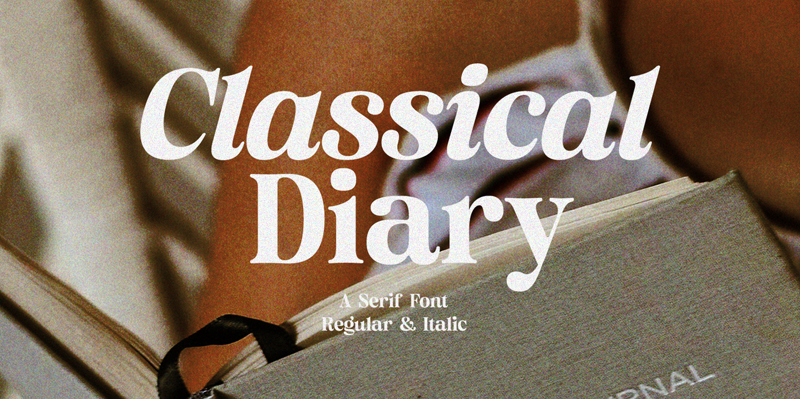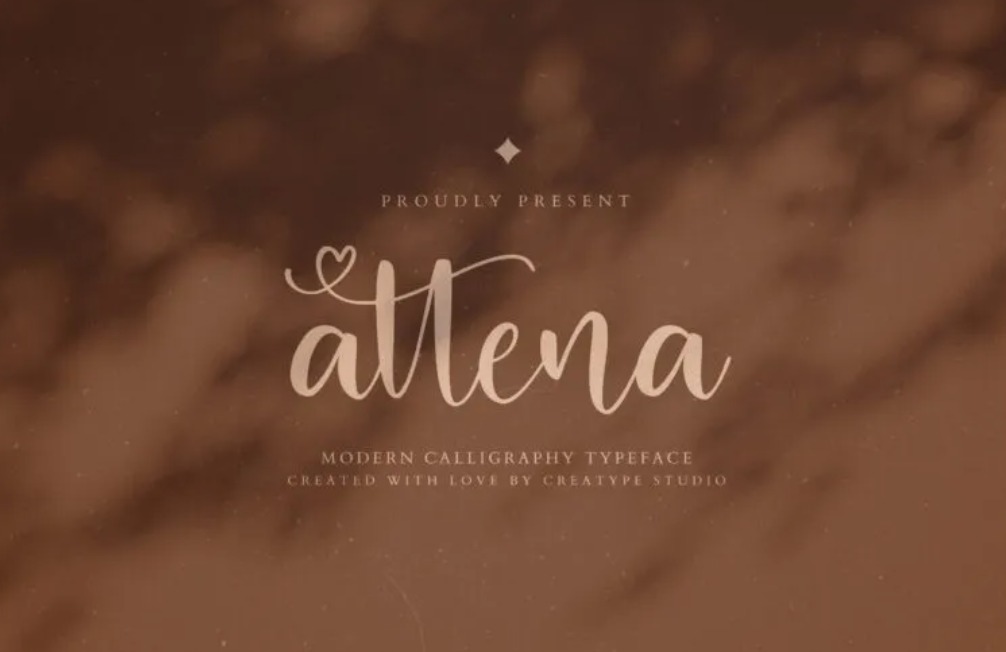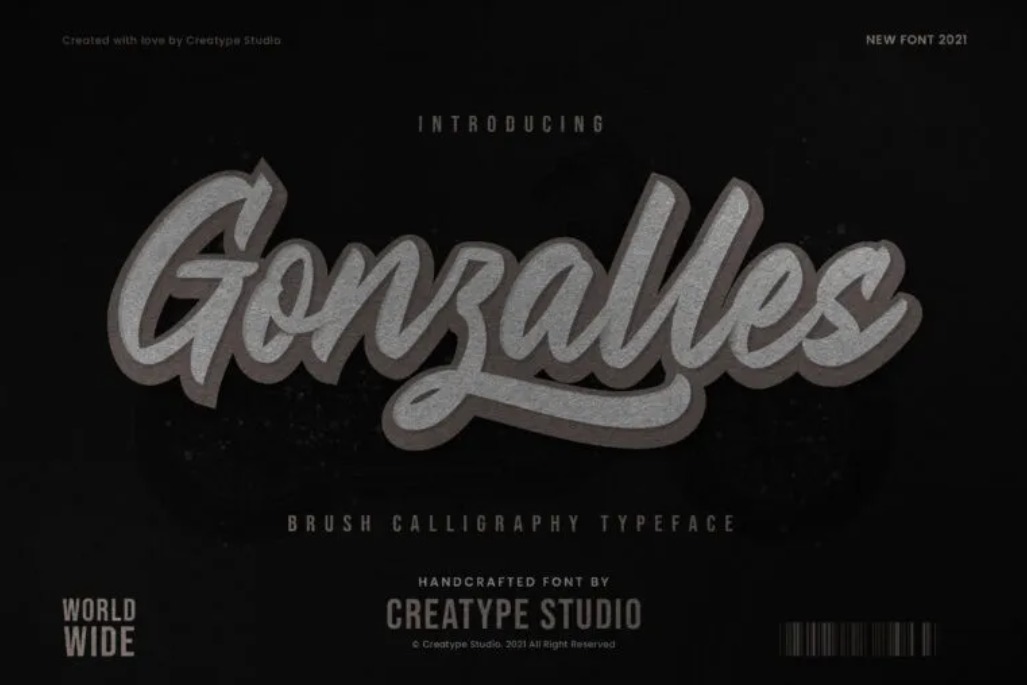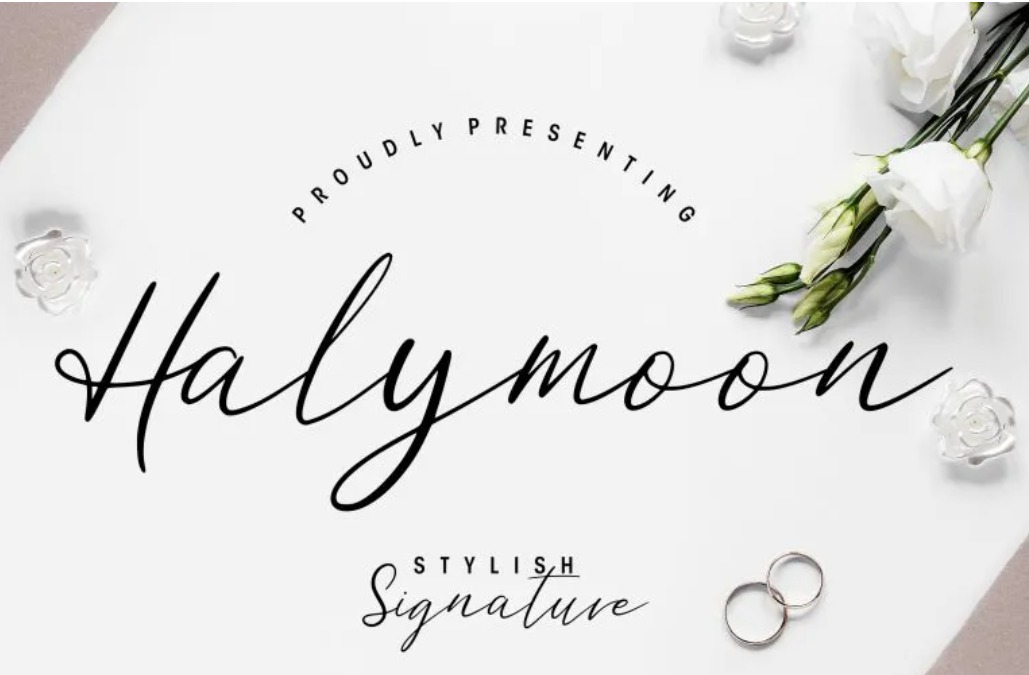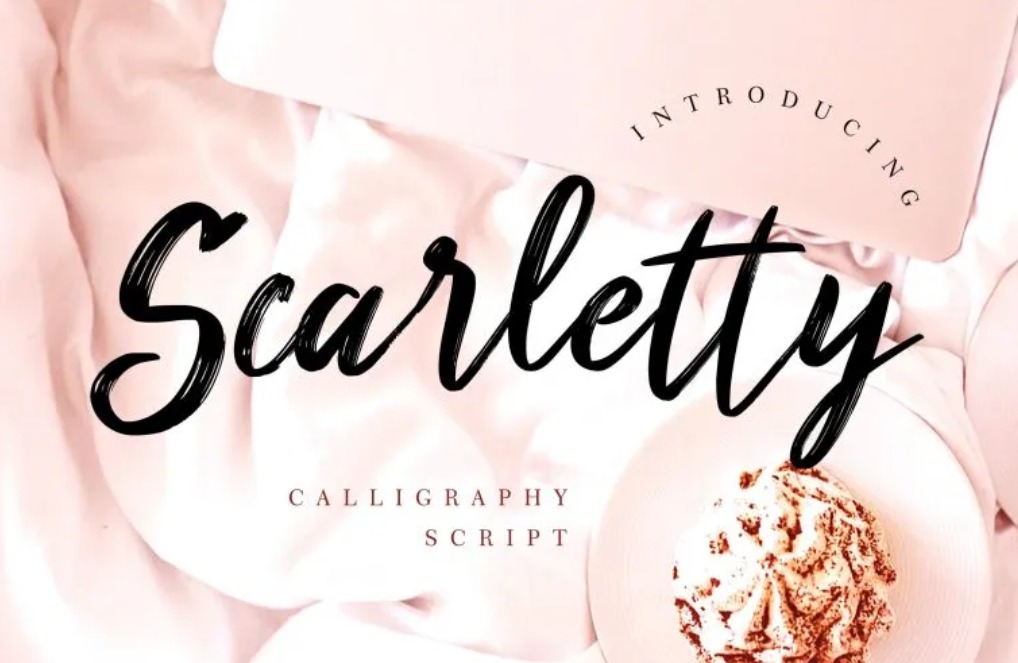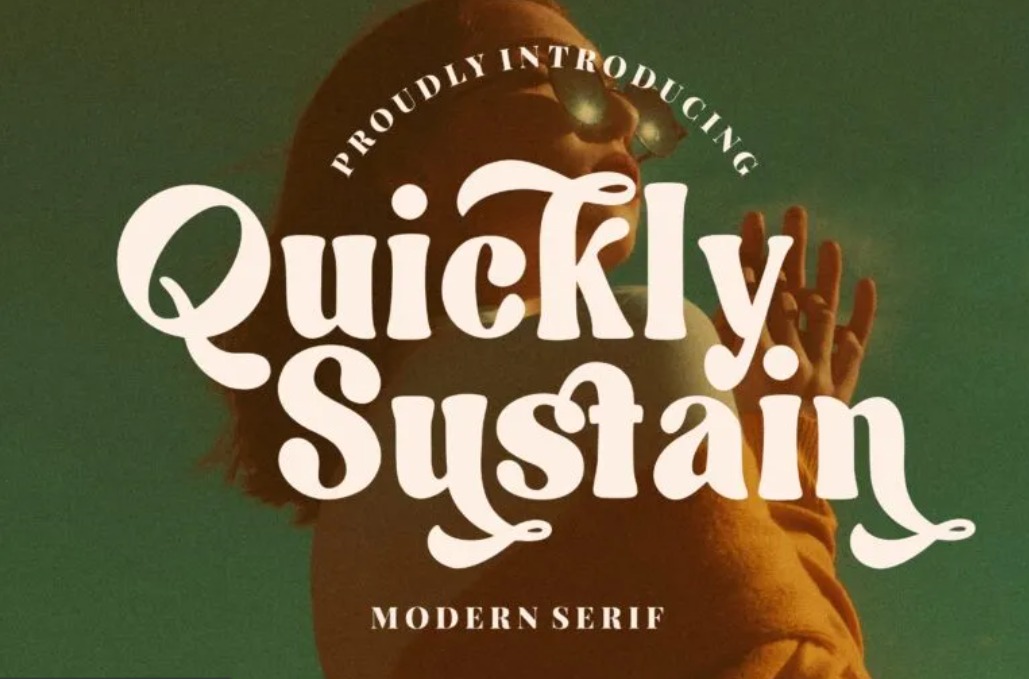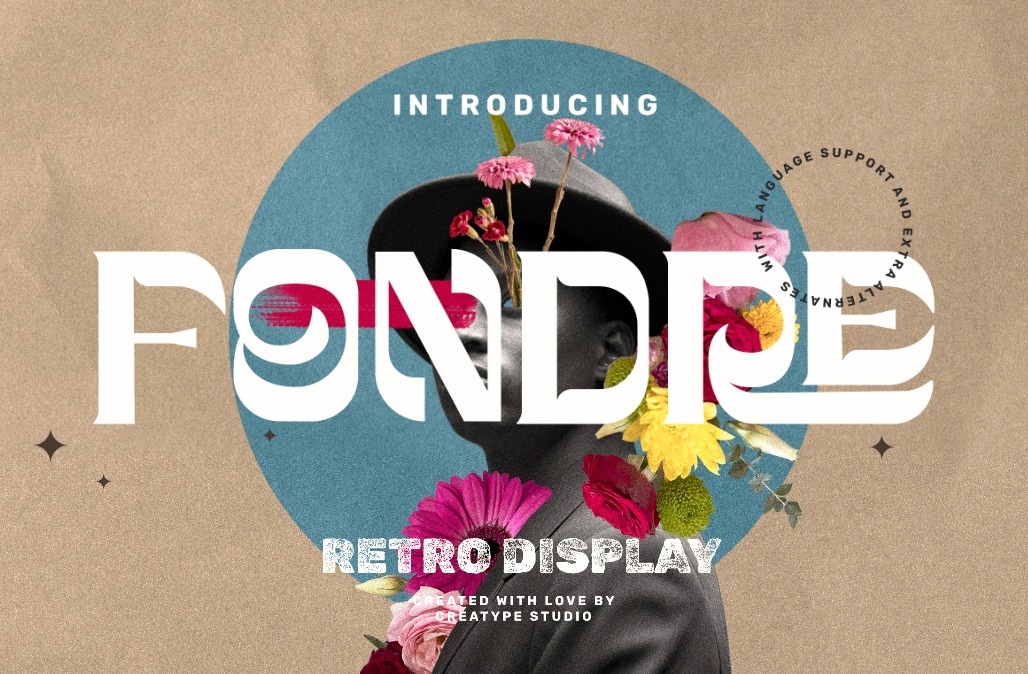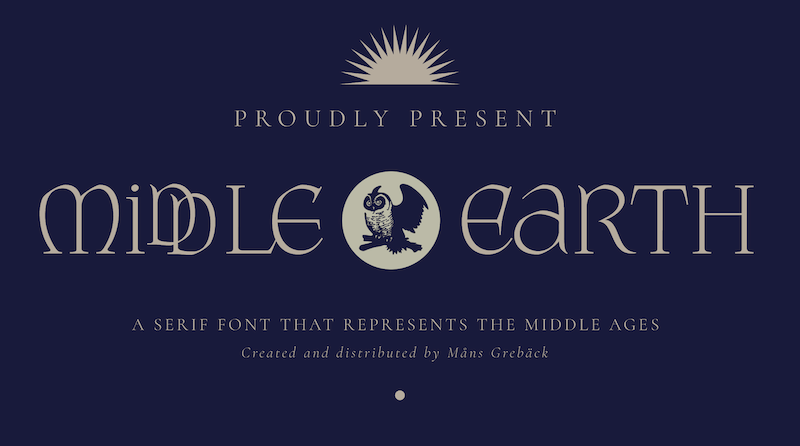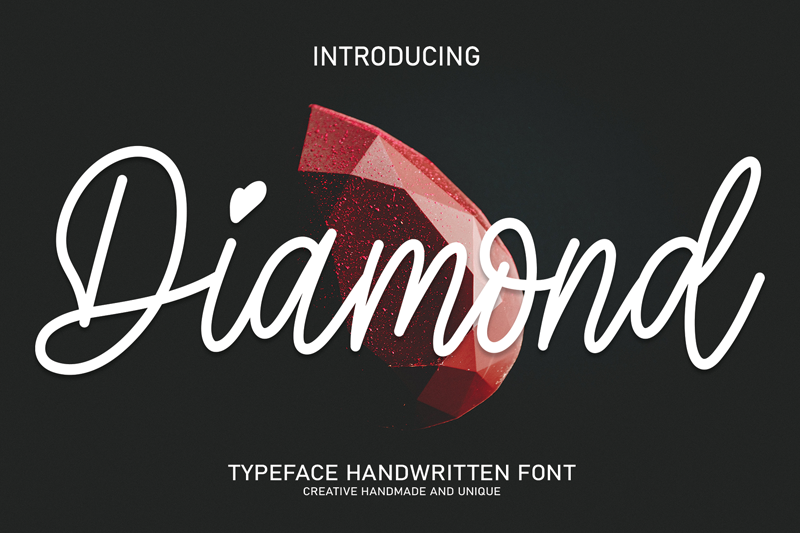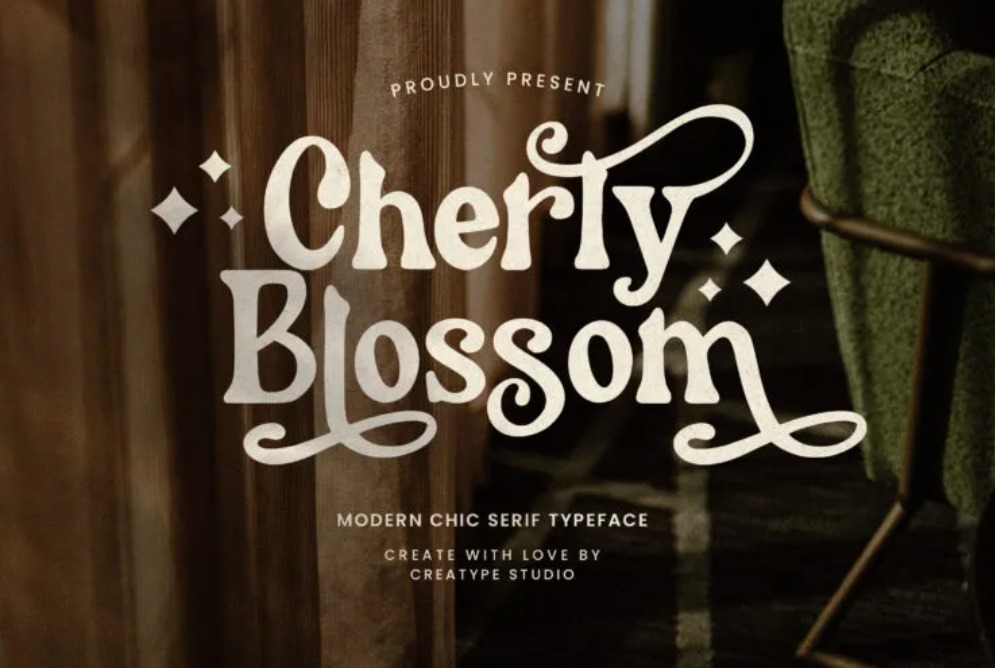
10 Luxury Brand Fonts for Your Luxury Brands Identity
Brand logos play a significant role because they are the identity of a product and a company. For those of you who are looking for luxury font inspiration for a luxury brand logo design project, make sure to choose a simple yet elegant font type. Luxury brand fonts usually have few ornaments, so they support good readability.
List Of The Best Fonts for Luxury Brands
The following are font types ranging from sans serif, handwritten, calligraphy, and brush style which will give a touch of luxury to the brand logo.
1. Classical Diary
Classical Diary
Choosing the Classical Diary font lets you bring a luxurious touch to the brand logo. Moreover, this serif-type font has a medium thickness, while the kerning between the letters is not too sparse. To make it more mesmerizing, use a capital letter at the beginning and the rest in lowercase.
2. Gonzalles
Gonzalles
You can also consider a calligraphy font type to give a lavish feel to the brand logo project you are working on. The Gonzalles font would be a smart choice for brands with a vintage feel.
This font produces a semi-curved writing display because each gap and letter are connected to each other. The lowercase letters (b), (d), (h), (j), (k), (l), (y), and (z) have a horizontal accent line that curves like a hat.
3. Halymoon
Halymoon
One of the luxury brand fonts that highlight the cute and elegant side you can try for your projects is the Halymoon font. This font design is like continuous cursive handwriting with pretty wide gaps. In detail, the wide gap comes from each lowercase letter ending in a slightly elongated stroke.
4. Scarletty
Sacrletty
Spice up the brand logo design using the Scartletty font. Furthermore, this font not only makes the brand logo look luxurious, but also artistic with its brush stroke touch. Using capital letters initially will add even more luxury to the brand logo design.
5. Quickly Sustain Modern Serif
Quickly Sustain Modern Serif
If you want fonts for luxury brands with a modern retro feel you can use for luxury logos, you may opt for Quickly Sustain Modern Serif. This bold font has a simple design, so it maximizes readability. Additional accents that are only found on alternate letters actually make it look more elegant and neat.
6. Fondre
Fondre
In order to produce a logo design that is far from mediocre, you should consider using the Fondre font. This bold style typeface gives a luxury twist and a unique and stunning look. However, it has good readability.
Even though the letter design doesn’t have many details, the Fondre font can present an artistic side with its simplicity.
7. Middle Earth
Middle Earth
You can create a brand logo with a firm but flexible feel by choosing the Middle Earth font. Middle Earth font only provides lowercase for (a) and (i) letters; the rest is in uppercase. The characteristic of this font’s letter design is that it uses puffy lines with rounded corners.
8. Diamond
Diamond
Another choice of luxury brand fonts collections you should also consider is Diamond font. Diamond is a handwritten font with a sweet and enchanting display. In detail, some lines bridge from one letter to another with strokes of the same thickness.
The lowercase design also looks perfect with its simple curved line accents. Furthermore, the love ornaments on the letters (I) and (j) also give a sweet touch to the logo design.
9. Cherly Blossom
Cherly Blossom
The Cherly Blossom font gives a firm and sweet feel at the same time to the logo design. In detail, some alternate letters have curly lines like plant tendrils. Combine uppercase letters with alternate lowercase letters to give a unique and artsy vibe.
The medium thickness of the letters and less dense spacing makes the design look magnificent.
10. Attena
Attena
Bring an elegant and dramatic twist to your brand logo design with Attena font. In fact, your logo will look luxurious even though it uses all lowercase letters.
The sweet and elegant feel comes from the detailed curly lines that form a heart icon on each lowercase alternate letter. In detail, thick and thin line strokes also enhance the luxury of the text.
Which Luxury Brand Fonts Suit Your Project?